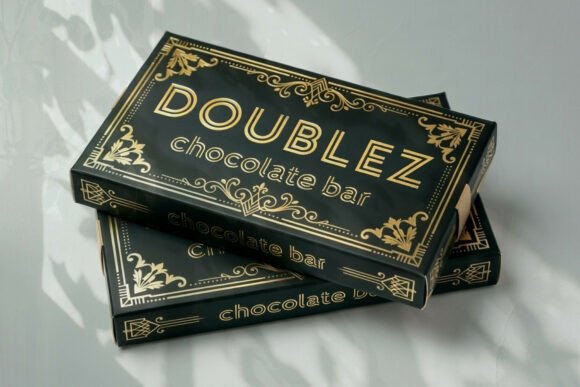
Doublez Font: Elevate Your Visual Identity
Have you ever stared at a beautiful piece of architecture and felt a rush of creative energy? That’s exactly what inspired the creation of Doublez Font – a stunning display font that redefines the modern inline aesthetic. With its unique “twin-line” construction, Doublez Font is perfect for designers who crave precision and sophistication in their work.
Doublez Font is more than just a font – it’s a versatile tool that offers a wide range of applications. From startups to creative agencies, and architecture firms, this font is ideal for anyone looking to create a distinct visual identity. With its clean, geometric paths and balanced structure, Doublez Font is a valuable asset for designers who want to elevate their work to the next level.
Doublez Font Key Features
- Font Family: Doublez Font is a sans-serif font family designed specifically for digital use, making it ideal for on-screen applications.
- Character Set: The font family includes a comprehensive set of characters, including Latin, Cyrillic, and Greek alphabets, as well as punctuation and symbols.
- Size: Doublez Font is available in multiple weights, ranging from Extra Light (100) to Extra Bold (800), providing a wide range of design options.
- Resolution: Optimized for high-resolution displays, Doublez Font is designed to look great at resolutions up to 4K (3840 x 2160 pixels).
- Unique Characteristics: The font’s distinctive design features a clean and modern aesthetic, with a focus on legibility and readability in digital environments.
Doublez Font Review
Overall, I think Doublez Font has a lot going for it, but there are some limitations that might hold it back. Let’s start with the good stuff.
- Doublez Font has a unique and quirky charm that sets it apart from more traditional fonts.
- The font is highly customizable, with a wide range of options for adjusting its weight, width, and other attributes.
- The font is highly legible, even at small sizes, making it a great choice for digital applications.
- The font can be quite busy and overwhelming, especially in large blocks of text.
- Some of the font’s more unusual features, such as its unusual letterforms, may not be to everyone’s taste.
- The font’s high customization options can be overwhelming, making it difficult to know where to start.
While Doublez Font has some limitations, I think it’s a great choice for designers who want to add some personality and whimsy to their work. With a little bit of restraint and careful consideration, Doublez Font can be a real showstopper.
Doublez Font is ideal for creating eye-catching headlines and titles in your Canva designs.
Doublez Font can be used to create custom typography and add a unique touch to your designs.
Doublez Font is ideal for creating attention-grabbing titles and headings in your presentations and documents.
Doublez Font is best used for:
- Headlines and titles
- Branding and logos
- Custom typography
Alternatives to Doublez Font
Fontin
Fontin is a sans-serif font designed by Erik Spiekermann in 1991. It’s a versatile font suitable for body text, headings, and titles. Fontin is a good alternative to Doublez Font when you need a clean, modern look without the ornate details. It’s available in various weights and styles, making it a great choice for complex designs.
Comparison to Doublez Font: Fontin is more minimalist and lacks the decorative elements found in Doublez Font. It’s ideal for designers who prefer a clean and straightforward aesthetic.
Playfair Display is an elegant, high-end font designed by Claus Eggers Sørensen in 2010. It’s perfect for luxury branding, titles, and high-end publications. Playfair Display is a good alternative to Doublez Font when you need a sophisticated, luxurious look. It’s available in various weights and styles, making it suitable for complex designs.
Comparison to Doublez Font: Playfair Display is more ornate and luxurious than Doublez Font. It’s ideal for designers who want to create a high-end, sophisticated look.